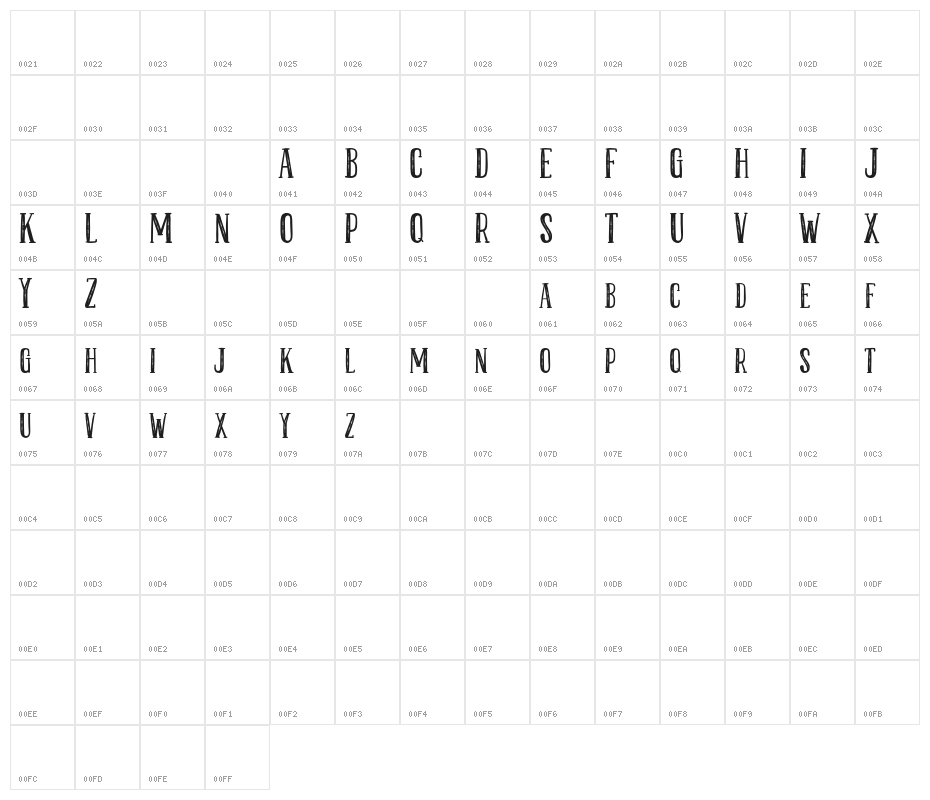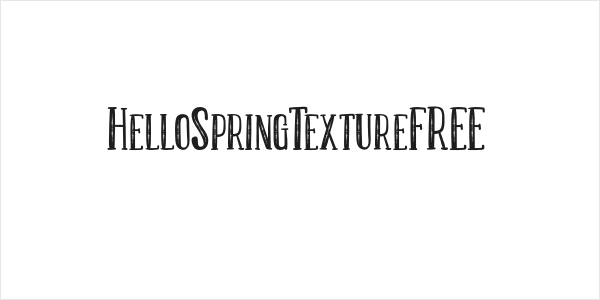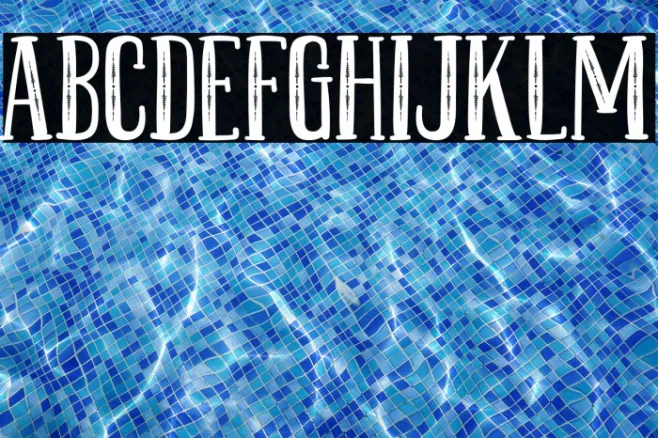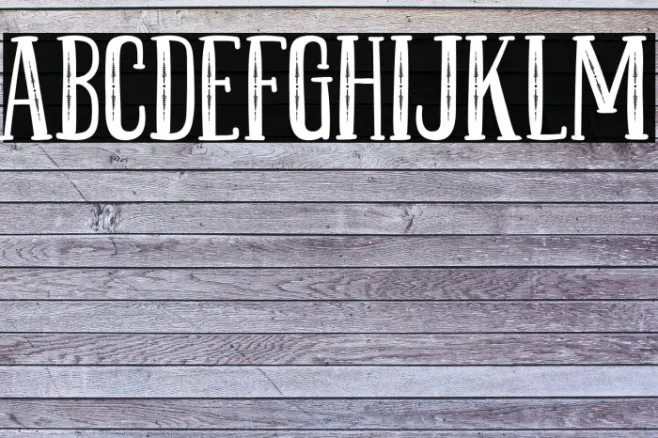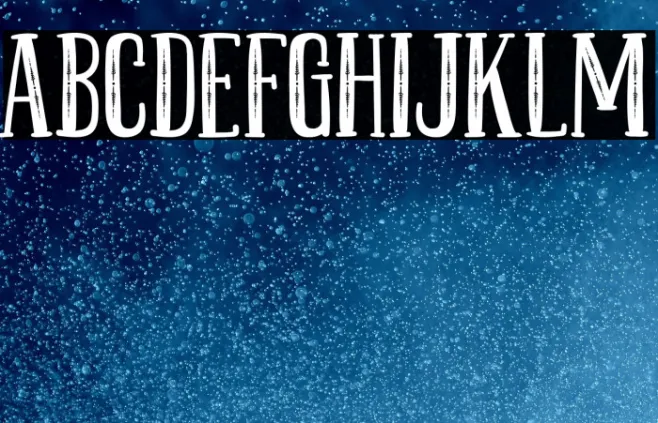
HelloSpringTextureFREE Font
HelloSpringTextureFREE Description
This font features a bold, textured style with a vintage, distressed appearance. The uppercase letters are tall and narrow, giving a condensed feel, while the texture adds a rustic and handcrafted touch. The strokes are uneven, creating a dynamic and eye-catching effect. This font is ideal for projects that require a retro or artisanal aesthetic, such as posters, branding, or packaging. Its unique texture makes it stand out, adding character and depth to any design.
| Proposed Projects | Ideal for posters, branding, packaging, and any design needing a retro or artisanal touch. |